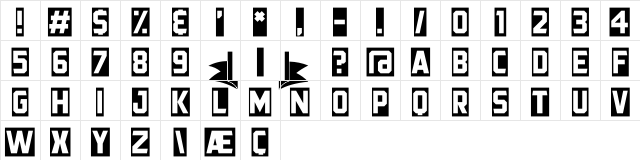
Complete Black Streamer Regular glyph index. Displaying only characters natively supported by Black Streamer Regular font.
Black Streamer is a composed and adaptable typeface that performs quietly and consistently across a wide range of design contexts.